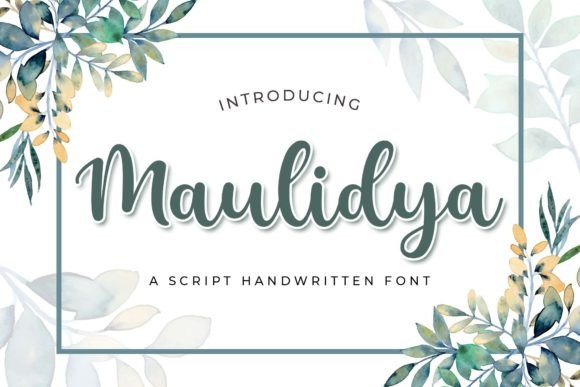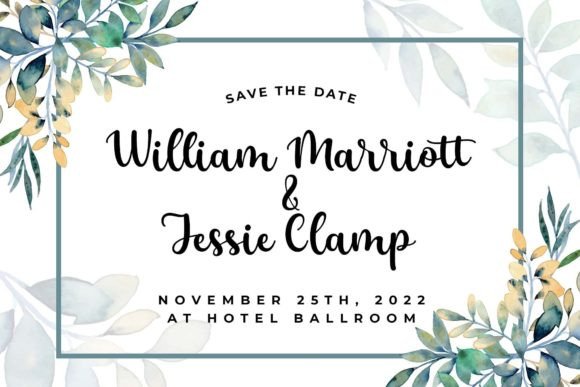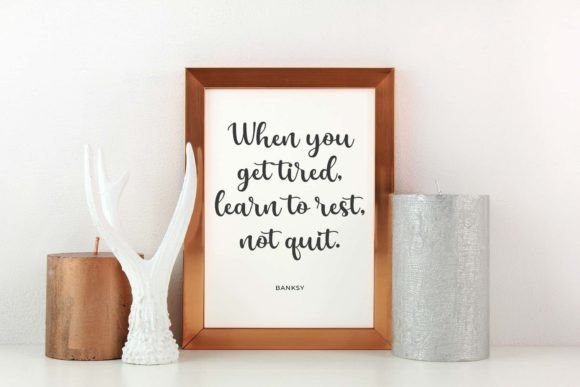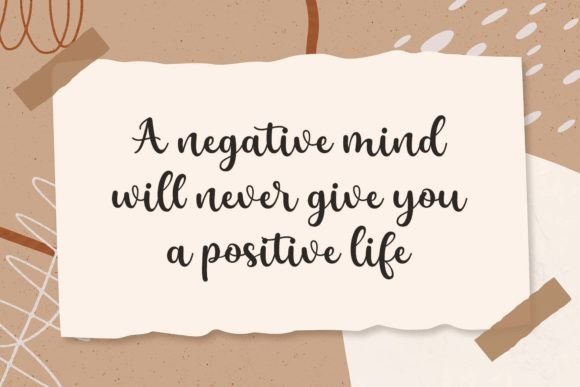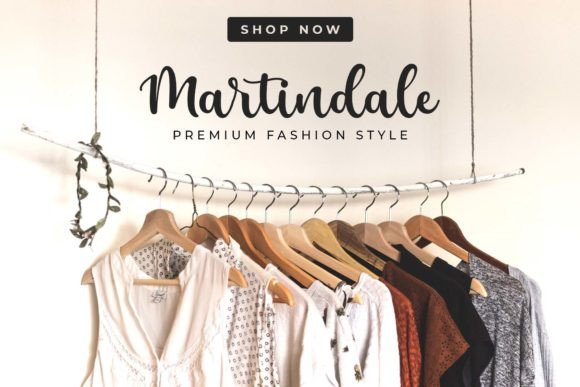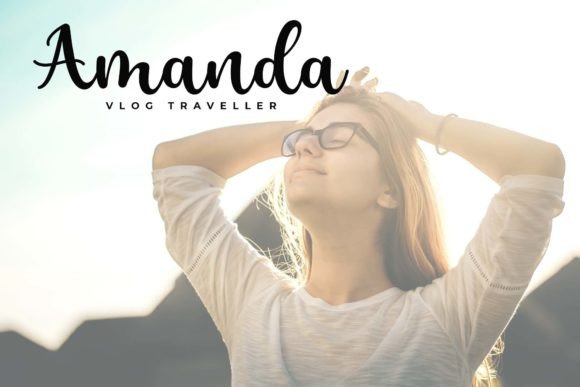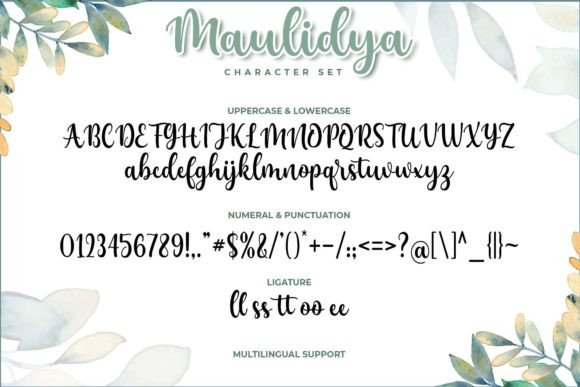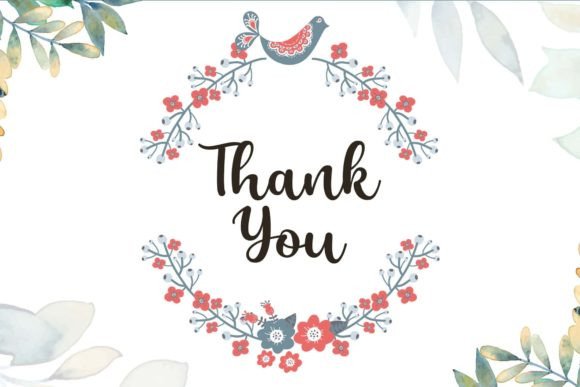
Maulidya Font
About Maulidya Script Font
Maulidya Script Font is an elegant and refined typeface designed to add charm and sophistication to any creative project. With smooth strokes, graceful curves, and a balanced handwritten flow, it captures the beauty of script typography while remaining stylish and professional. Because of its versatility, Maulidya Script Font is perfect for invitations, posters, logos, packaging, branding, and wedding stationery.
A Script Typeface with Elegant Flow
Handwritten fonts often add personality to projects, and Maulidya Script Font embodies this quality with style. Its flowing lines and polished structure make it ideal for both casual and formal designs. In addition, its timeless look ensures your projects feel modern while retaining a touch of classic charm.
Perfect Typeface for Invitations and Stationery
Special events call for fonts that create lasting impressions, and Maulidya ScriptFont is a wonderful choice. For example, it enhances wedding invitations, thank-you notes, and elegant event programs. Moreover, it is an excellent fit for birthday cards, seasonal greetings, and romantic letters, helping you capture emotions through beautiful typography.
A Script Typeface for Branding and Packaging
Designers and businesses can rely on Maulidya Script Font to create eye-catching branding. It looks stunning on boutique logos, product labels, and packaging. Furthermore, it adapts seamlessly to advertising campaigns, magazine covers, and social media posts. When paired with minimalist sans serif fonts, it establishes a professional and balanced brand identity.
Flexible Across Print and Digital Media
Another advantage of Maulidya ScriptFont is its adaptability across platforms. In print, it brings sophistication to posters, brochures, and merchandise. Digitally, it integrates smoothly into websites, blogs, and e-commerce platforms. Since it scales clearly from small tags to large banners, it guarantees readability and visual consistency across all formats.